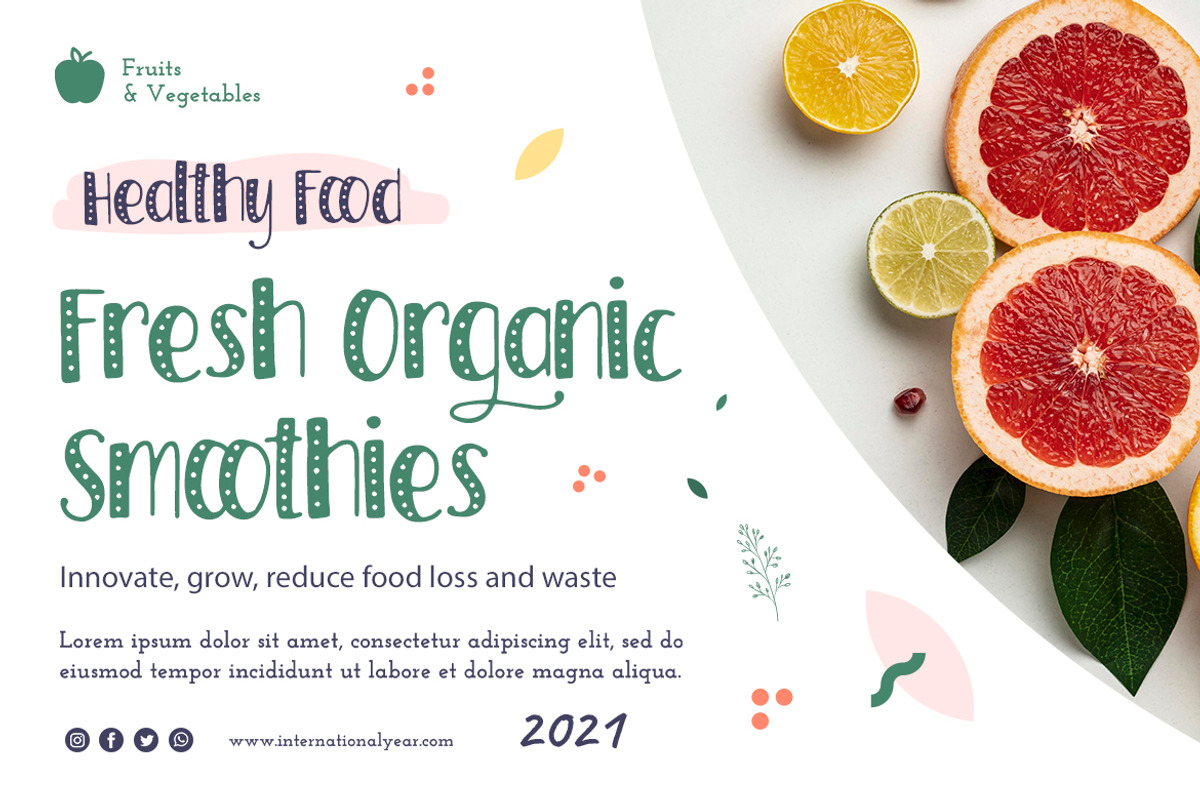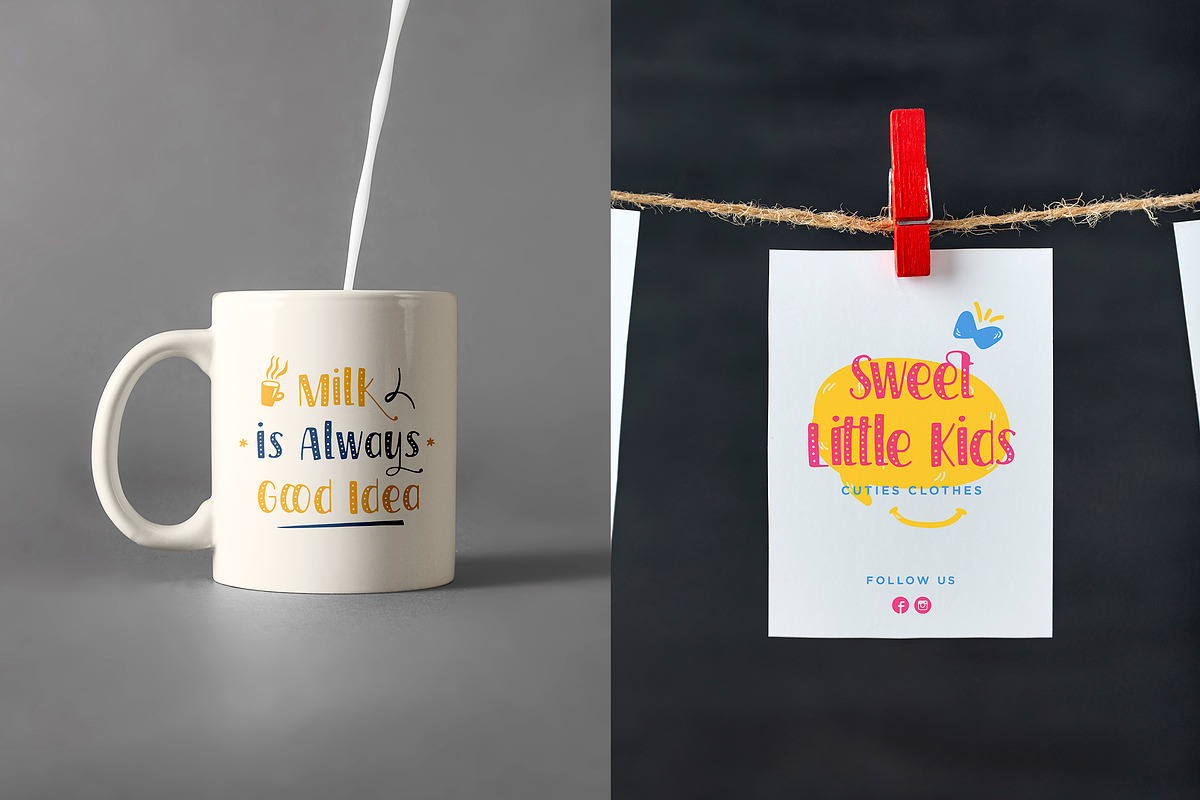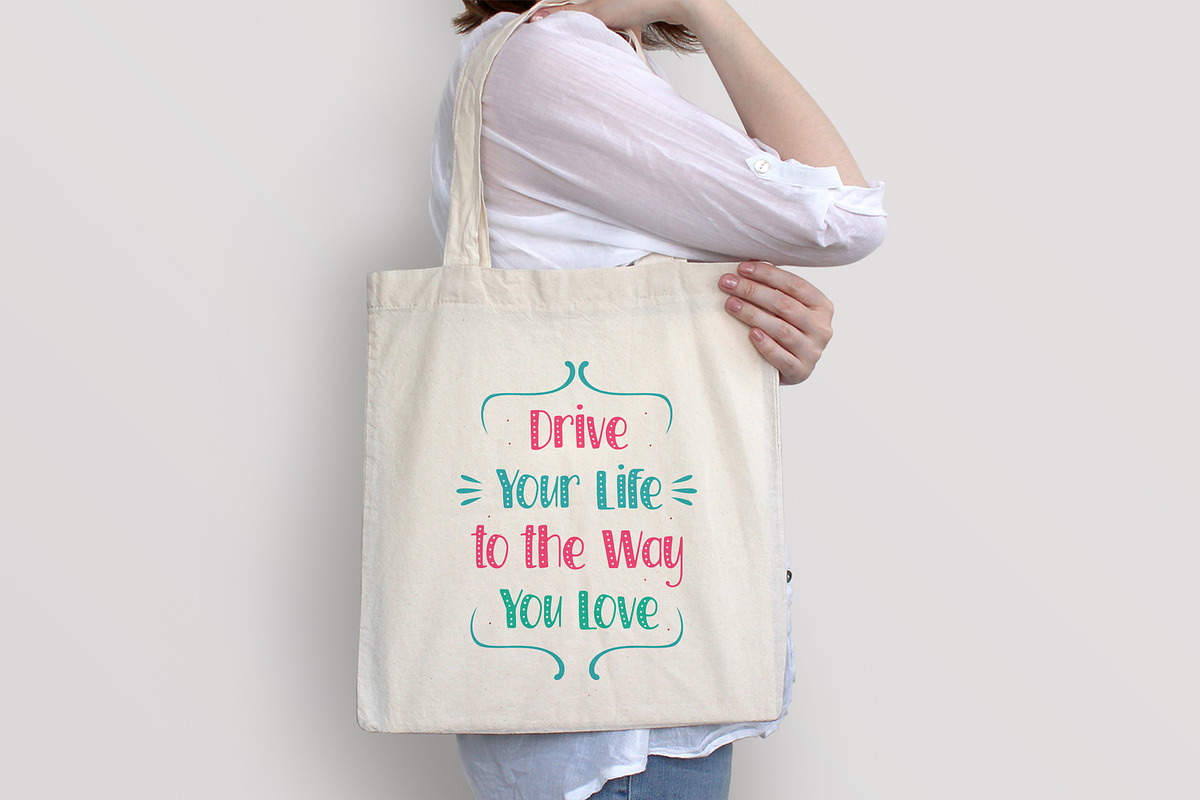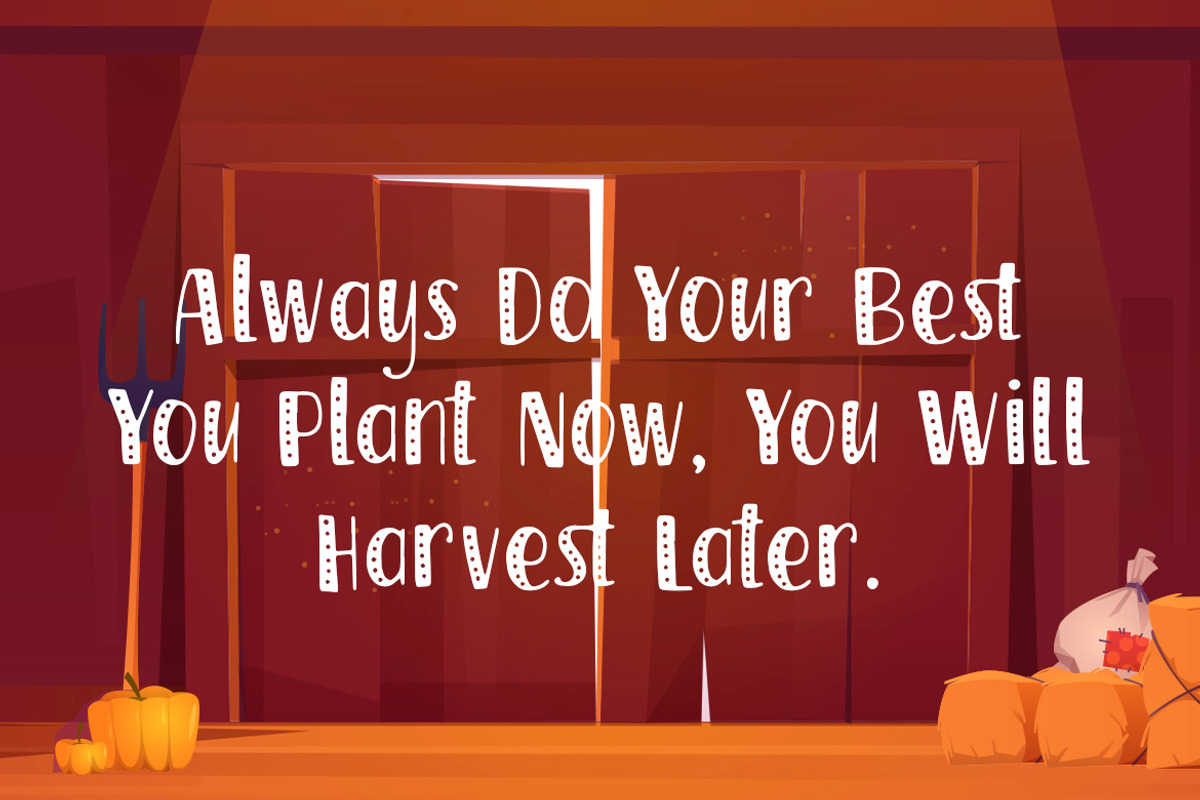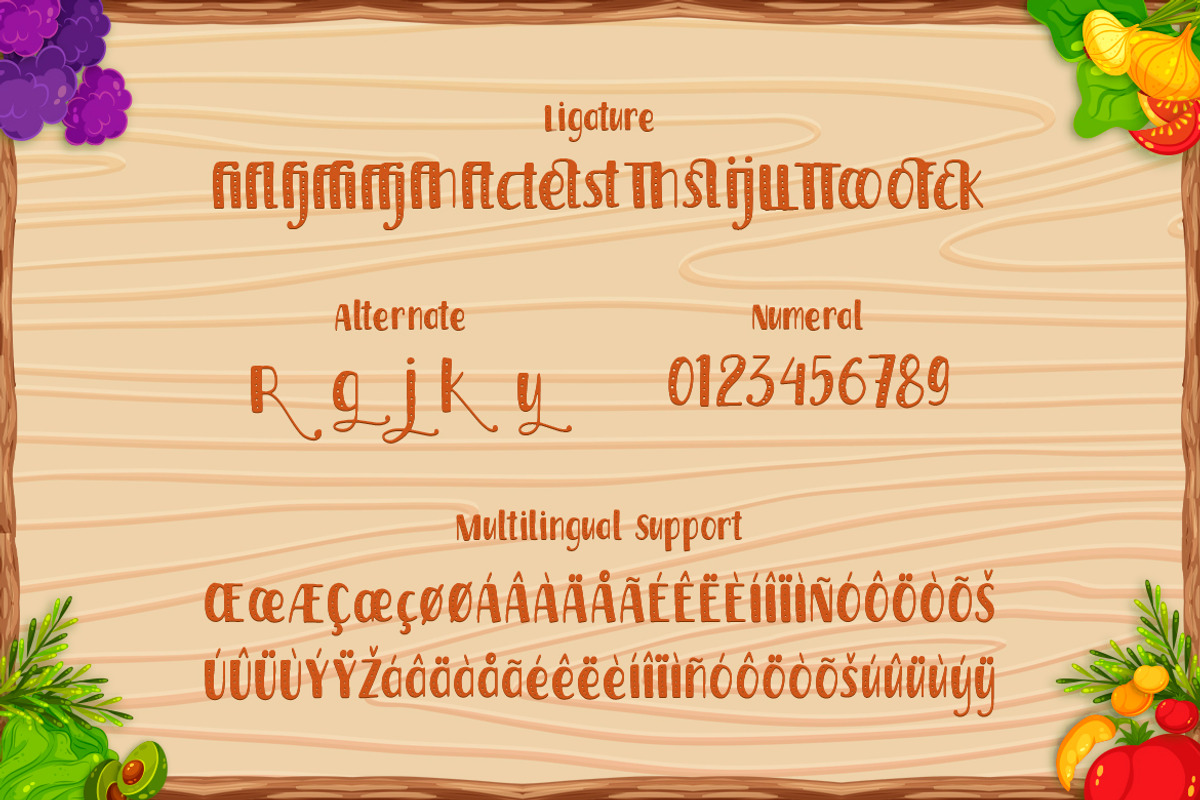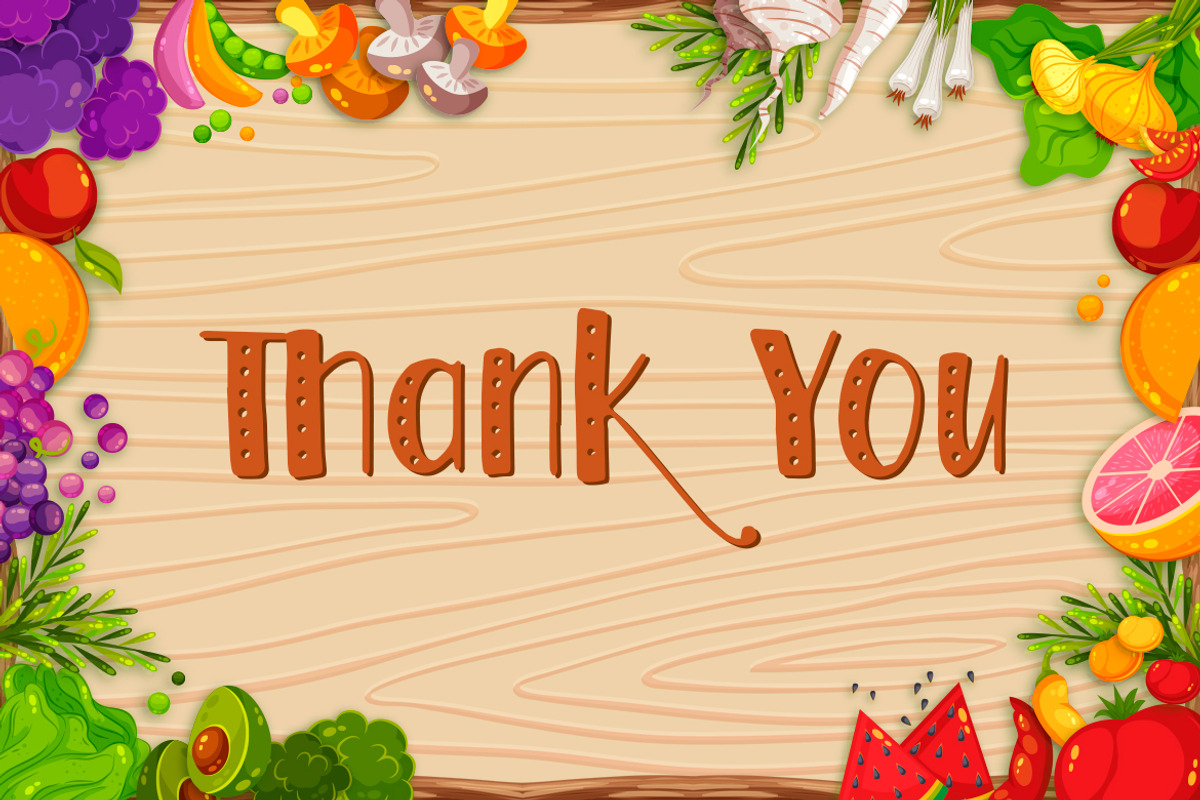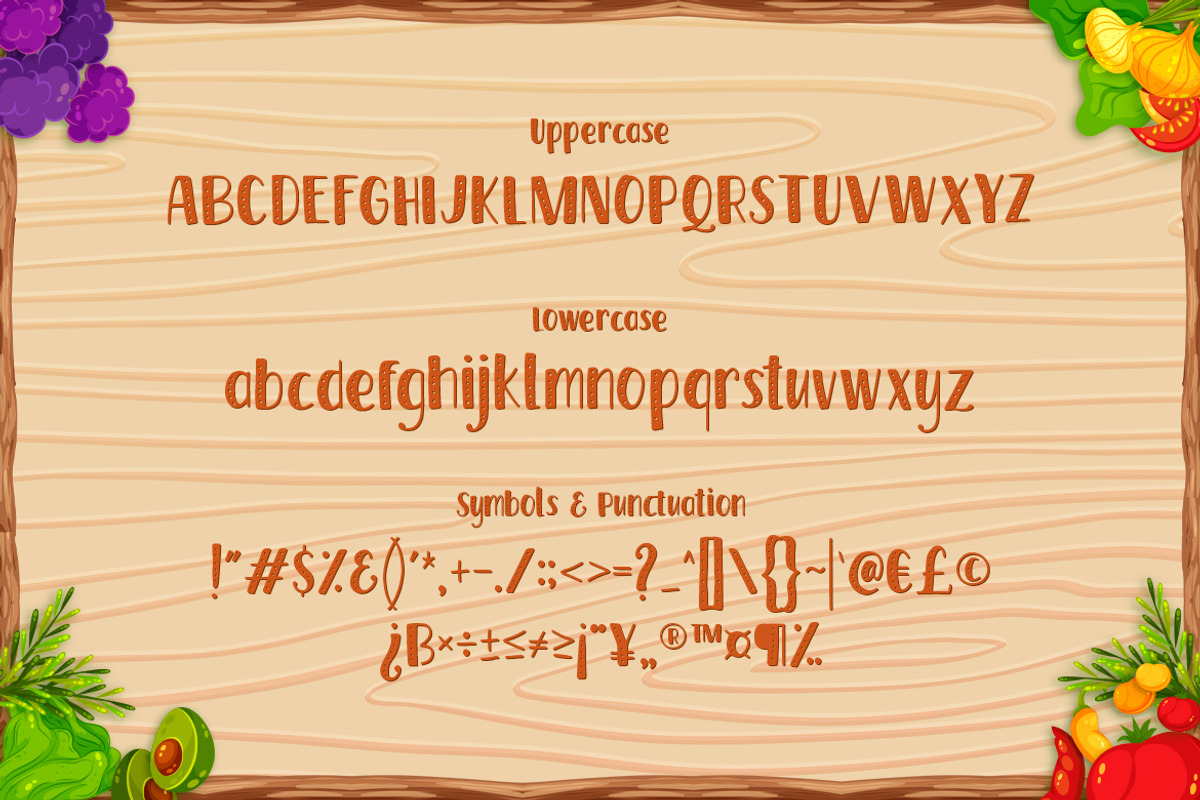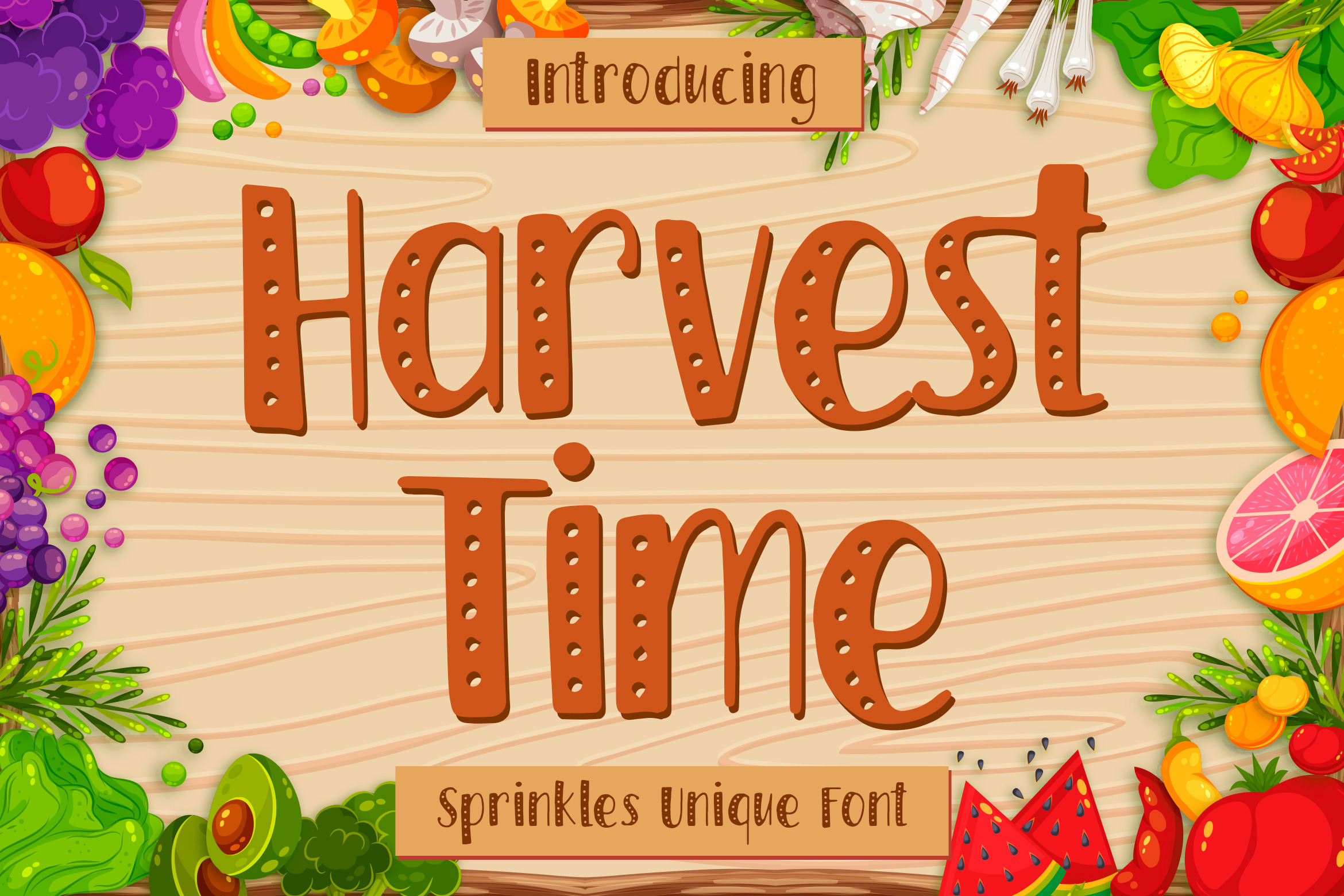
Harvest Time - Sprinkles Unique Font
Harvest Time is sprinkles font. This whimsical hand-crafted font sports sprinkles throughout. Get inspired by its joyful look!
- Symbols & Punctuation
- Numeral